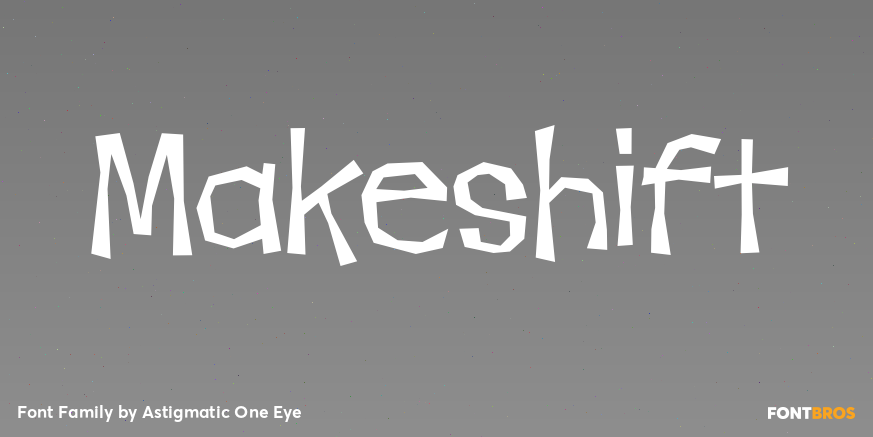
HomeFunWackyMakeshift Wacky Makeshift FacebookXPinterestWhatsApp 1 of 1 About Makeshift The Makeshift family is an offbeat hillbilly style typeface; light-hearted, angular, and playful.  DOWNLOAD ON FONT BROSThis font is sold and delivered by Font Bros. Font Canyon may earn a commission if you buy through this link. People also explored Cranberry Gin Dreaming Font Vestival Font Saffa Font Snappy Fingerspelling Font Sweet Sunrise Font Janetha Hasley Font Creamy Latte Font 320 0 TagsMakeshift Font Previous articleGolden DecadesNext articleCousin Beth LEAVE A REPLY Cancel reply Comment: Please enter your comment! Name:* Please enter your name here Email:* You have entered an incorrect email address! Please enter your email address here Website: Save my name, email, and website in this browser for the next time I comment. Personal Use Free Legacy Personal Use Free Read more about this font Gdynia Personal Use Free Read more about this font Broodfath Personal Use Free Read more about this font Jilliant Personal Use Free Read more about this font BLOG Free vs Paid Fonts: Why Investing in Premium Fonts Is Worth It Free vs Paid Fonts: Why Premium Fonts Are Worth It in 2025 The debate of free vs paid fonts continues in the design world. While... Where to Buy American Fonts Online in 2024 To increase your work productivity, choose the most readable fonts. Using Fonts in Digital Marketing: Tips to Strengthen Your Brand Identity